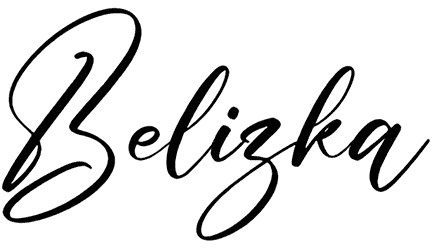
Belizka Font
Turn to account this delightful effect to convert a plain style into a playful one. Right away, with no hanging around, pull your finger out to insert this script font in many greeting cards, invitations, posters, branding, album covers, or other projects that need to save their natural tone.
The concepts of Belizka just exist, or inserting into your chosen place through hitting this calligraphy font to spread the friendly aesthetics is free. Wait to see how it sounds nice.